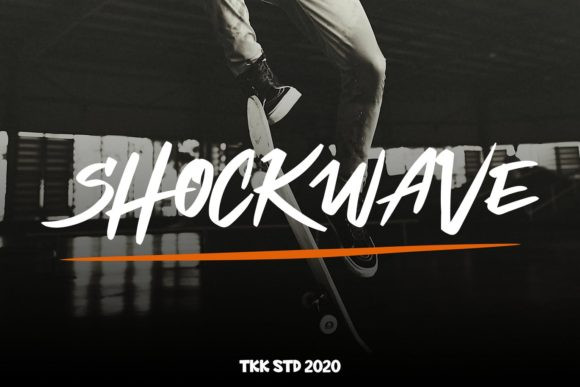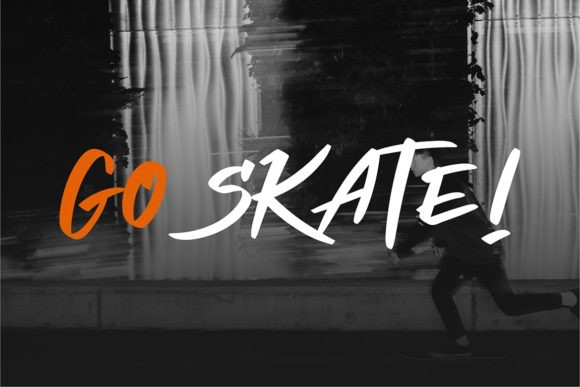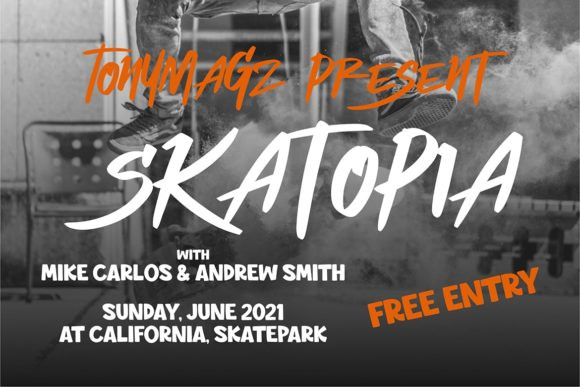
Shockwave Font
Shockwave is a fun and quirky handwritten font. This font is the ideal font for adding an adventurous and authentic feel to your next design idea!